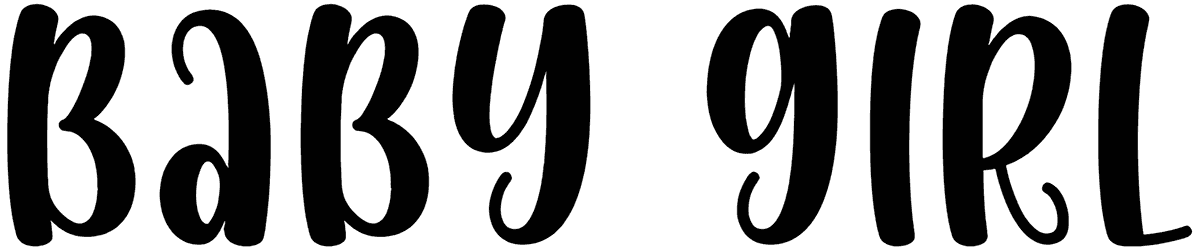
Night Hunter Font
If you are thinking of flourishing your mental ideas using a minimal and straightforward font, Night Hunter can be part of the magic of art to make you stand out.
This cartoon font is an easy-to-use set that adapts to a wide range of projects to create unique logos, packaging, or posters. If you want to create a personal space that will gain the audience’s trust more efficiently and doesn’t need small letters, we suggest Night Hunter.